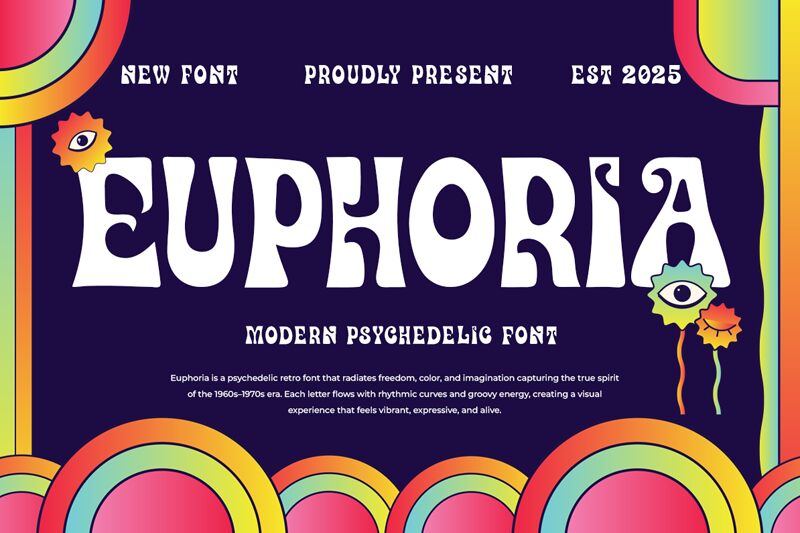
Euphoria font by Kong Font drips with ’70s swing—chunky, wavy shapes that feel hand-cut from a poster and pressed into fresh ink. The rhythm is bouncy and a little mischievous, with soft curves and uneven weight that keeps words moving instead of sitting still. Euphoria is a free groovy font, and its playful wobble makes even short headlines feel like music.
Using Euphoria on record-cover art, festival flyers, retro logos, sticker packs, psychedelic merch, social posts, and café signage gives your message instant nostalgia without trying too hard. Set it large with generous spacing so the curves can breathe, then pair it with a clean geometric sans for the details—this free font likes a calm sidekick.